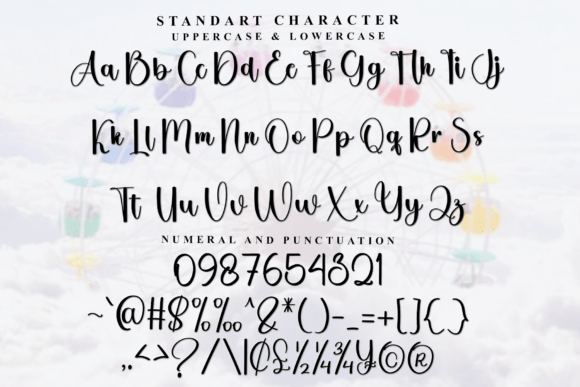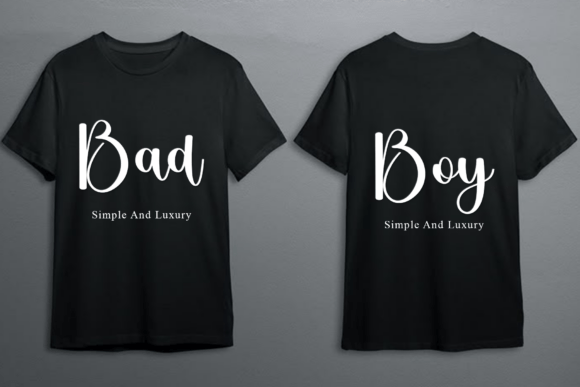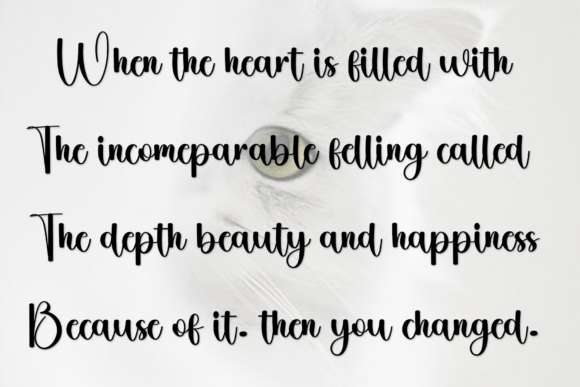
Discover the Magic of Holiday Amsterdam Font
As a designer, there’s nothing quite like that moment when you stumble upon the perfect font to bring your vision to life. It’s a spark of inspiration, a dash of creativity, and a whole lot of excitement. For me, that moment came when I discovered the Holiday Amsterdam Font – a beautiful and eye-catching typeface that’s as versatile as it is unique.
This charming font is designed to add a soft, special touch to your designs, making it perfect for a wide range of creative projects. From crafts to design, the Holiday Amsterdam Font is an ideal choice for those looking to add a natural, effortless charm to their work. Its compatibility with various applications, including Windows and open-source platforms, makes it a valuable asset for designers looking to elevate their designs and reach a broader audience.
Holiday Amsterdam Font Key Features
- Font Family: Holiday Amsterdam Font is a unique, hand-drawn font designed to evoke the spirit of the holiday season.
- Unique Characteristics: Features intricate, hand-drawn designs and ornaments, making it perfect for holiday-themed designs, invitations, and cards.
- Language Support: Supports a wide range of languages, including Latin, Cyrillic, and Greek alphabets, making it versatile for international designs.
- Font Pairing: Designed to be paired with other fonts to create unique and festive combinations, adding a touch of holiday magic to any design.
Holiday Amsterdam Font Review
I was excited to dive into the Holiday Amsterdam Font, and overall, I found it to be a charming and unique addition to any design project. ✨ The font’s elegant, handwritten feel immediately evokes the spirit of Amsterdam, and its whimsical flair adds a touch of personality to any text.
Here are some specific features that I think work well:
- ✨ Elegant and refined feel, perfect for high-end designs or luxury brands
- ✨ Whimsical flair that adds a touch of personality to text
- ✨ Wide range of language support, making it a versatile choice for multilingual projects
- ⚠️ Limited to 300 characters per line, which may be restrictive for longer blocks of text
- ⚠️ May not be suitable for highly technical or formal content, as it can come across as too playful
Overall, I think the Holiday Amsterdam Font is a great choice for designers looking to add a touch of elegance and whimsy to their projects. While it may have some limitations, its unique feel and wide range of language support make it a valuable addition to any designer’s toolkit.
The Holiday Amsterdam Font is a versatile font that can be used for a variety of designs, from travel brochures to restaurant menus. To get the most out of it, try combining it with other fonts and graphics to create a unique and eye-catching design.
The Holiday Amsterdam Font is commonly used in:
- Travel brochures and guides
- Restaurant and cafe menus
- Hotel and resort branding
- Event invitations and promotional materials
Alternatives to Holiday Amsterdam Font
Carolyna Pro is a modern script font that combines elegance and sophistication. It’s ideal for use in branding, invitations, and other creative projects where a touch of luxury is required. Carolyna Pro is similar to Holiday Amsterdam Font in its elegant and stylish nature, but it has a more refined and polished look.
Litera
Litera is a serif font that offers a classic and timeless look. It’s perfect for use in editorial content, book design, and other projects where a traditional feel is desired. Compared to Holiday Amsterdam Font, Litera has a more formal and structured appearance, making it suitable for a wider range of applications.
Great Vibes is a modern script font that exudes a sense of freedom and playfulness. It’s ideal for use in creative projects, such as posters, flyers, and social media graphics, where a fun and energetic vibe is required. Great Vibes is similar to Holiday Amsterdam Font in its casual and laid-back nature, but it has a more dynamic and expressive feel.